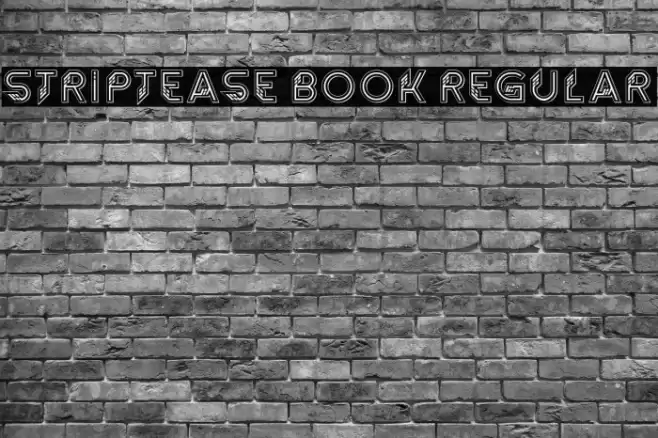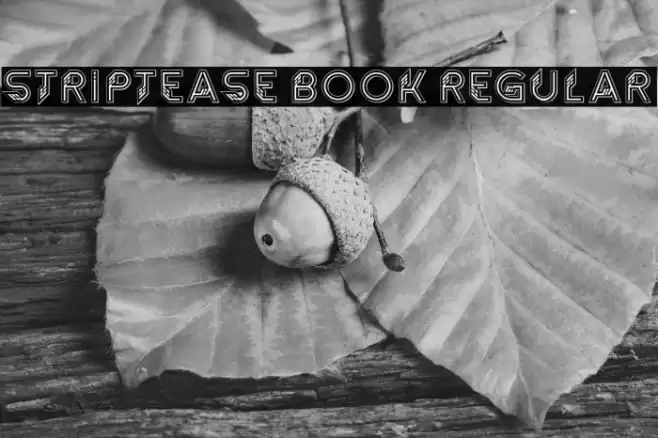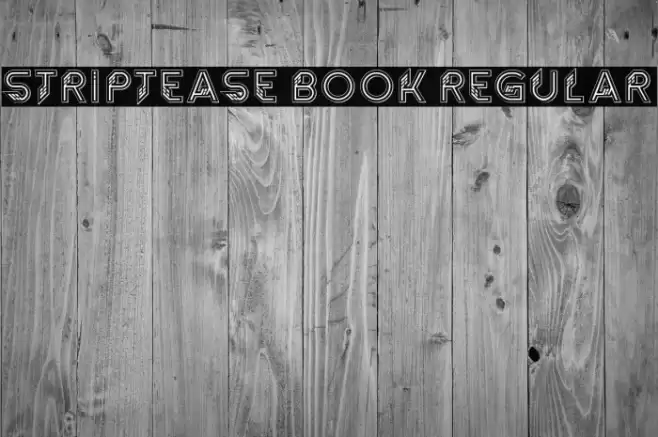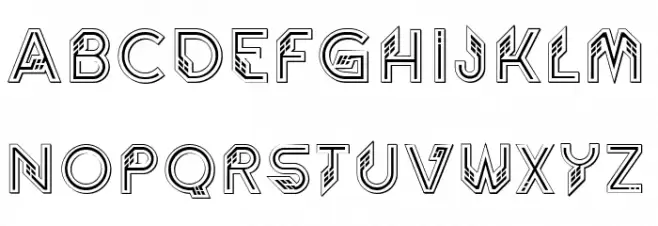
Striptease Book Regular Font
Striptease Book Regular Description
This font features a unique and eye-catching design with a geometric, layered style. Each character is constructed with multiple lines that create a sense of depth and movement. The uppercase letters are bold and structured, making them ideal for attention-grabbing headlines or titles. The overall appearance is modern and artistic, with a hint of retro flair. The font's intricate detailing and bold presence make it suitable for creative projects that require a distinctive and memorable typeface.
A geometric, layered font with a modern and artistic style from Uncategorized fonts.
- Font: Striptease Book Regular
- Proposed Projects: Ideal for posters, album covers, branding, and any project needing a bold, artistic touch.